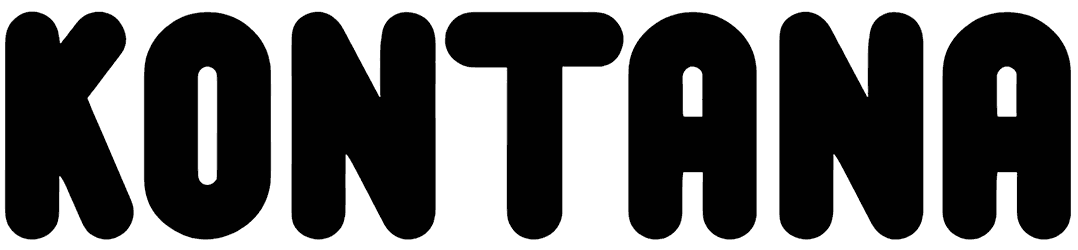
Kontana Font
If you like to trim your design with a modern, humble, and special vibe, this would be a good suggestion for you. As a rounded font, Kontana shows soft and bold lettering that can be matched with any item. There is no support for lowercase letters, but still, it can throw a catchy mood into your creative designs, from titles to packaging.